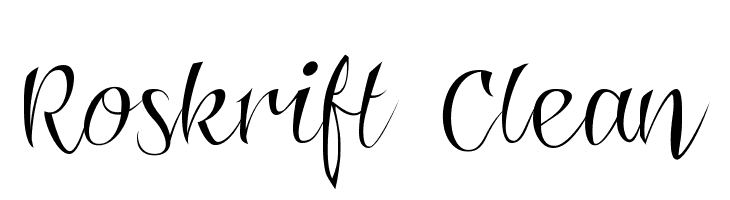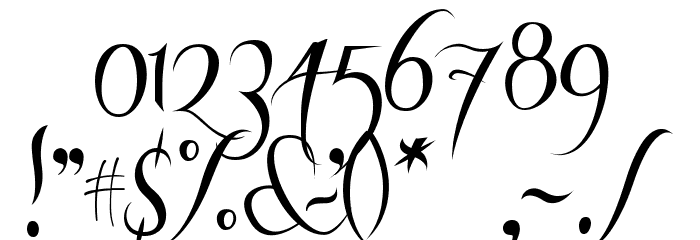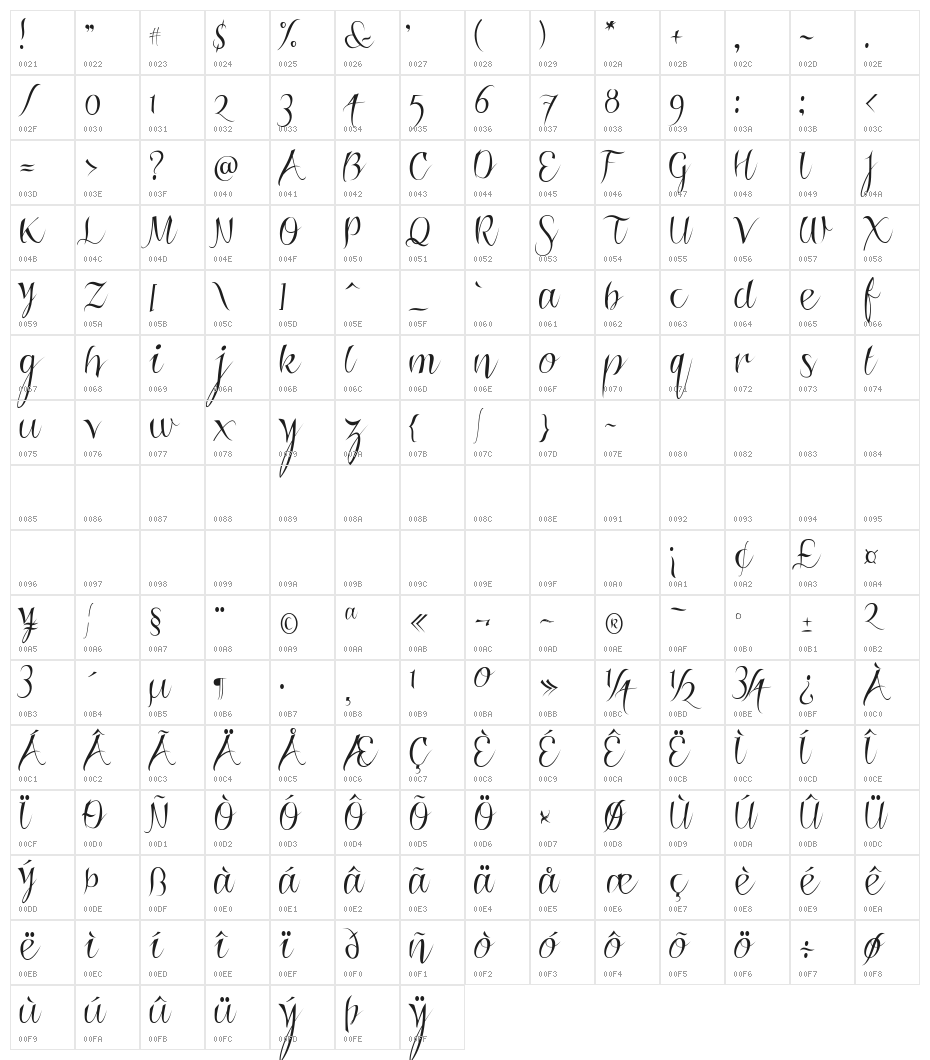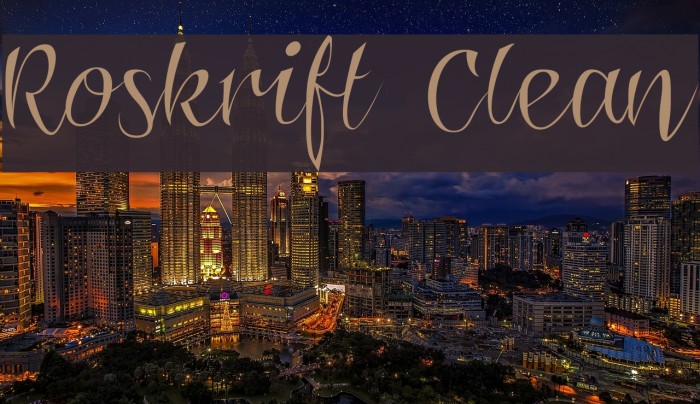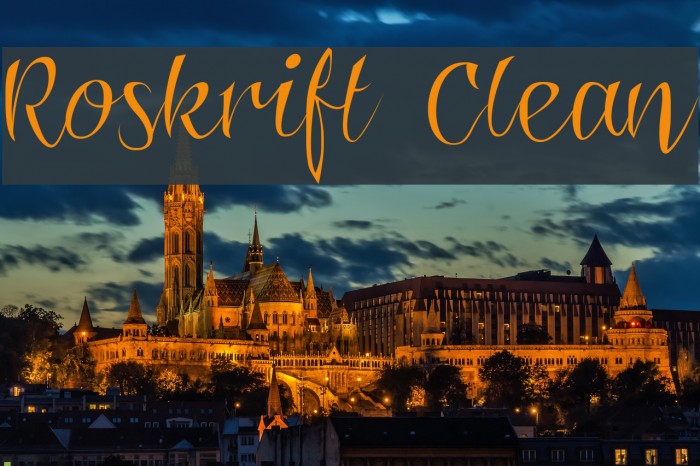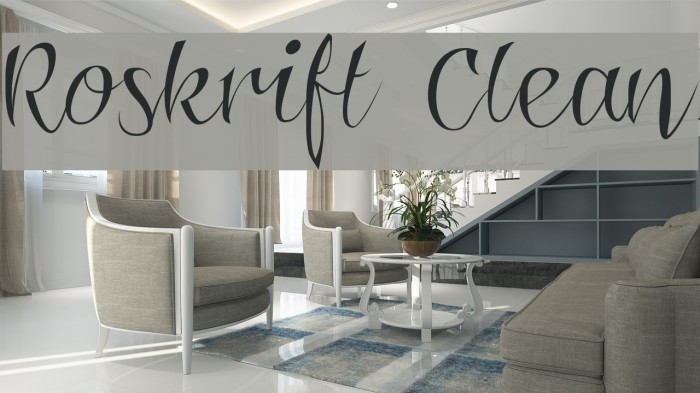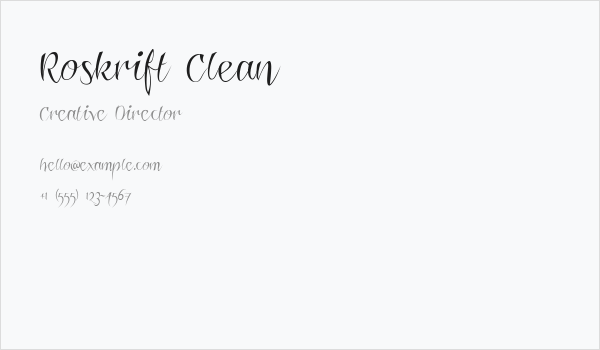
Roskrift Clean Font
Roskrift Clean Description
This font features an elegant and flowing script style, characterized by its smooth, cursive strokes and graceful curves. The uppercase letters are tall and slightly narrow, with distinctive loops and swashes that add a sense of movement and sophistication. The lowercase letters maintain a consistent flow, complementing the uppercase with their rounded forms and delicate connections. The numerals are stylishly integrated into the script, maintaining the overall aesthetic with their fluid lines. Special characters are thoughtfully designed, enhancing the font's versatility. This font exudes a sense of elegance and refinement, making it suitable for formal and decorative applications.
| Use Case | Headlines, Invitations, Branding |
| Proposed Projects | Ideal for wedding invitations, elegant branding, greeting cards, and decorative headlines. |